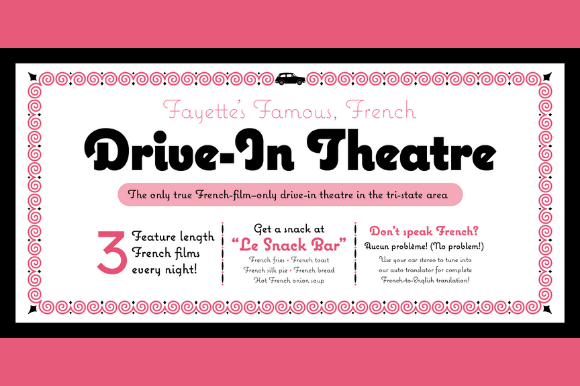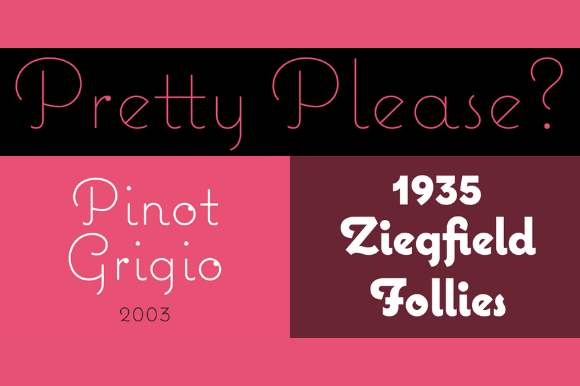
Coquette Font
db-ku.com - Script & Handwritten -- Coquette (2001, 2017) is an unconnected upright script, a sort of hybrid between French scripts, such as Typo Upright, and 1930s-era geometric sans serifs, such as Kabel.